30+ Free Elegant Wedding Fonts
Fonts are a great way to add personality to your wedding stationery. You can use free wedding fonts to add a touch of elegance to your invitations, thank you cards, and more. A font can give your designs a certain style and feel, so they can help convey the mood you want for your big day.
The reason why I am suggesting free wedding fonts is because they are just as elegant, and sometimes even have more features than the paid fonts. They are also much easier to find, download, and use on your projects.
When it comes to wedding fonts, there are so many options to choose from. But, finding the perfect font for your wedding can be a daunting task. If you’re looking for something elegant and timeless, we’ve rounded up the best free wedding fonts for you.
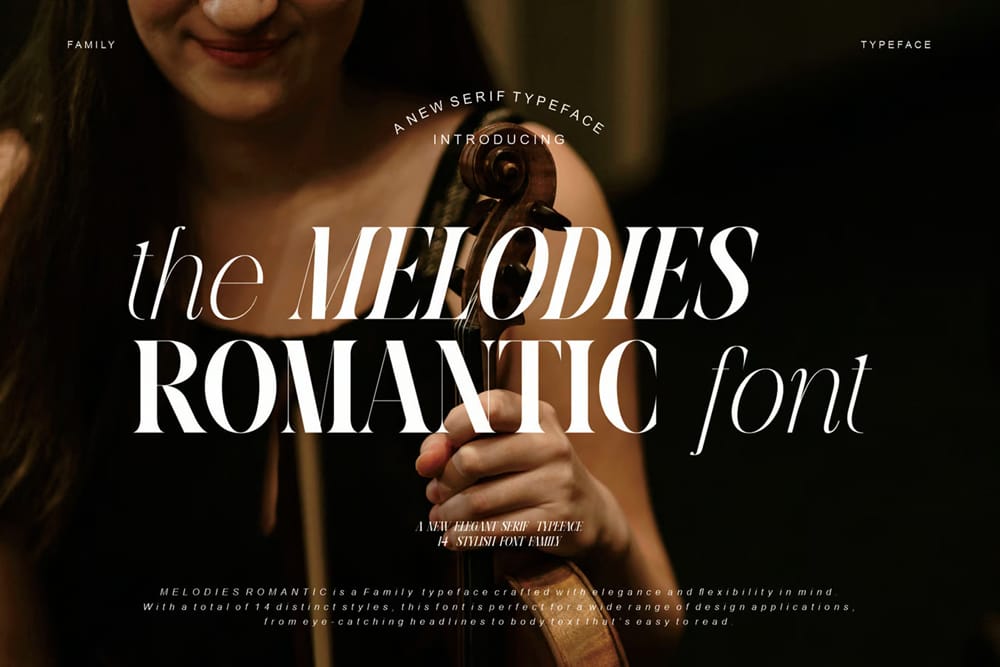
Daizen Script
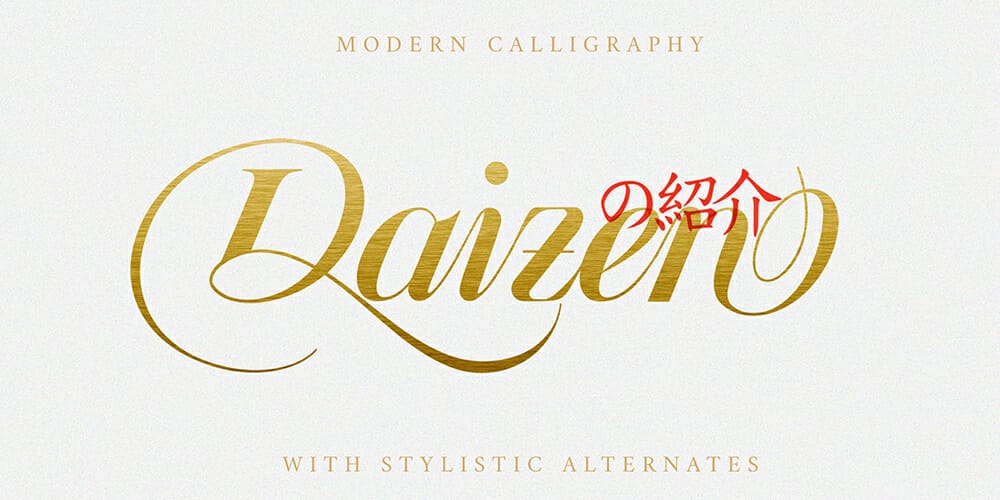
is a Japanese-inspired script font that is perfect for wedding invitations. It comes with alternate numbers, along with additional symbols and punctuation. This font would look great with a black kaiten-maru background paper.
Exmouth
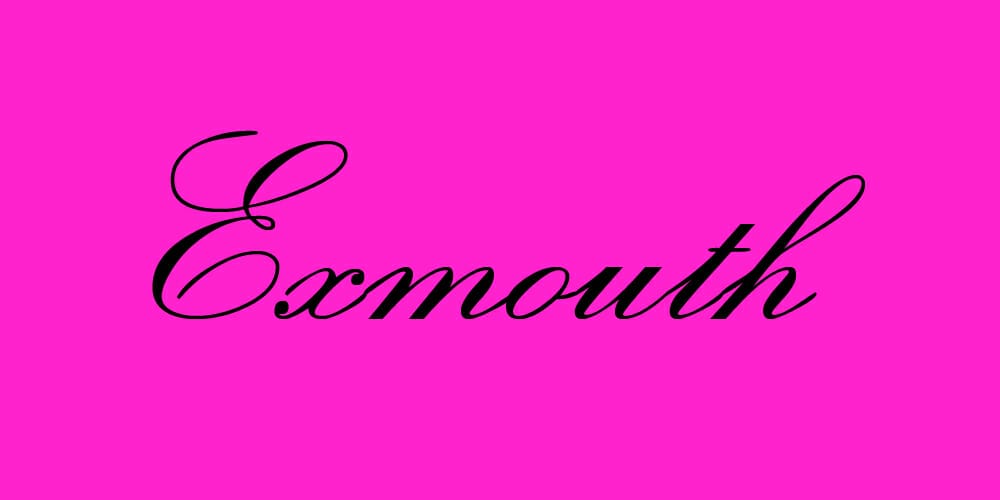
is a modern font that comes in regular and italic styles. The font includes accented letters, so it would be great for any international wedding.
Winlove Wedding Font
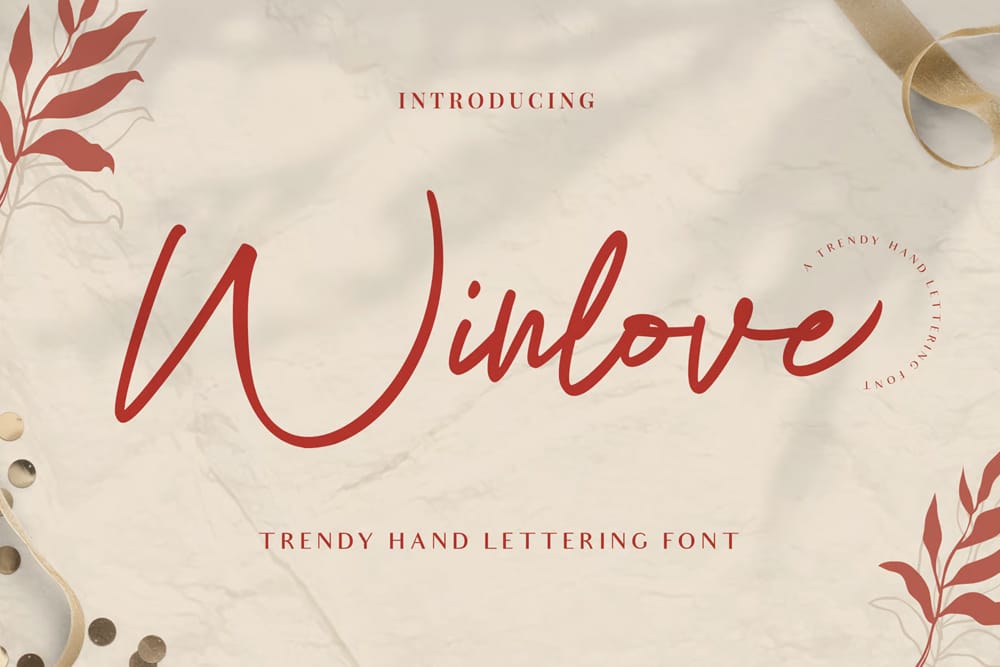
Precious Font
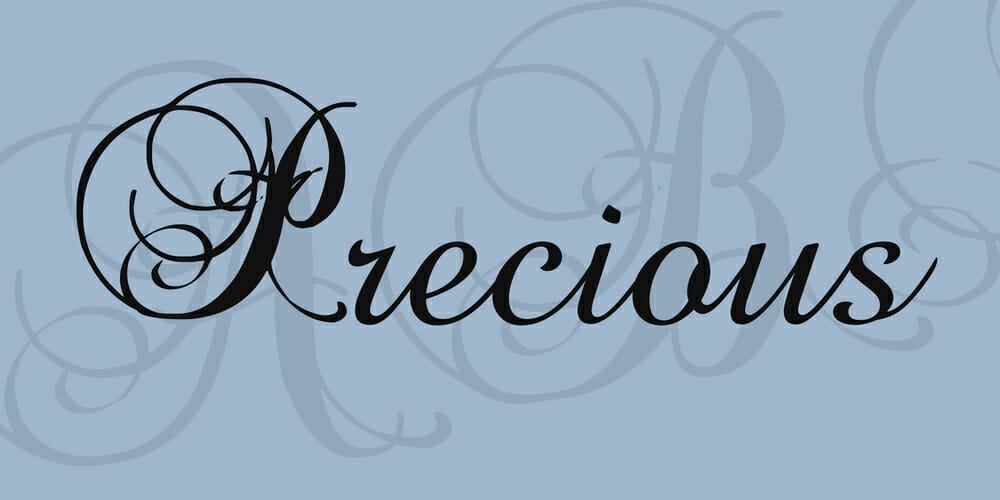
is a vintage-style wedding font. It includes a number of alternates, letters and symbols, so it would be great for creating table numbers or place cards
Alex Brush
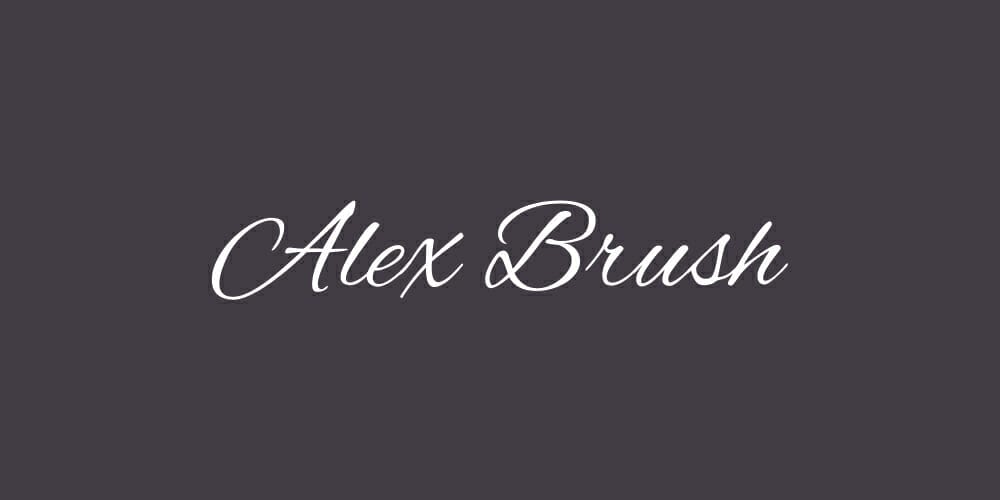
Alex Brush is a beautiful brush script font that comes with a number of alternates, making it perfect for elegant wedding invitations and other stationery. The font includes both upper and lowercase letters, as well as numbers and punctuation marks.
Love and Joy – A Wedding Font
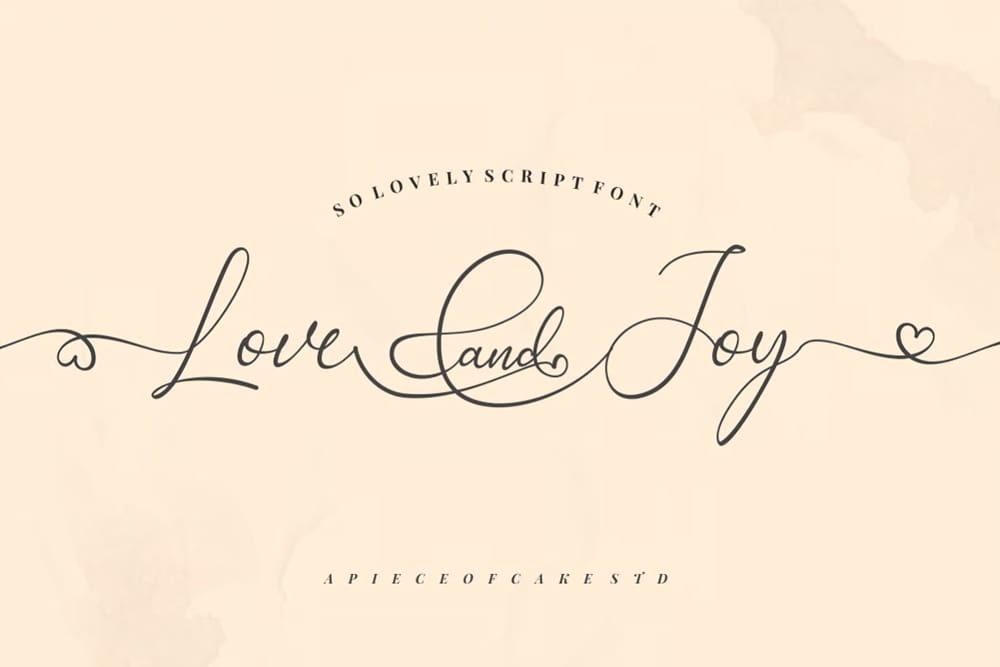
Evelyne Script
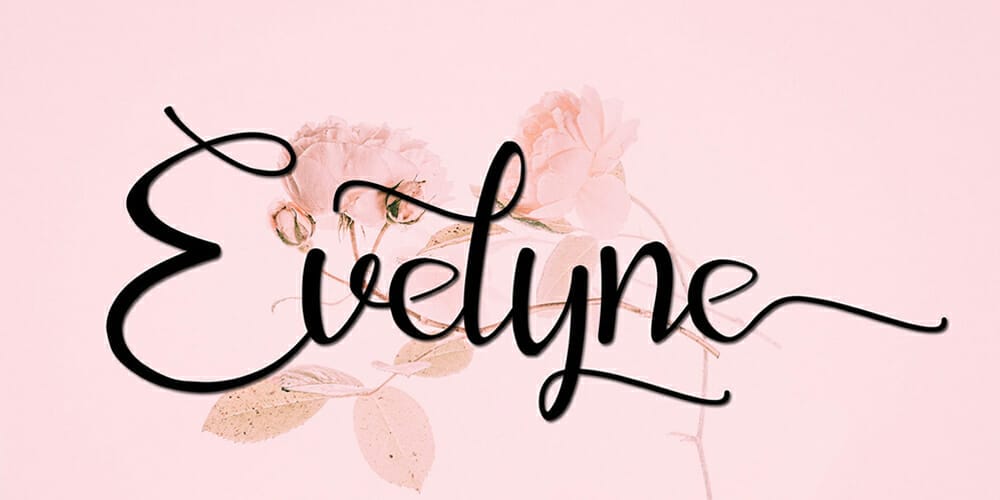
is a gorgeous wedding font with swashes that give it a beautiful and elegant touch. The font comes in a regular and bold style, and includes alternate numbers as well as punctuation marks.
Great Vibes Font
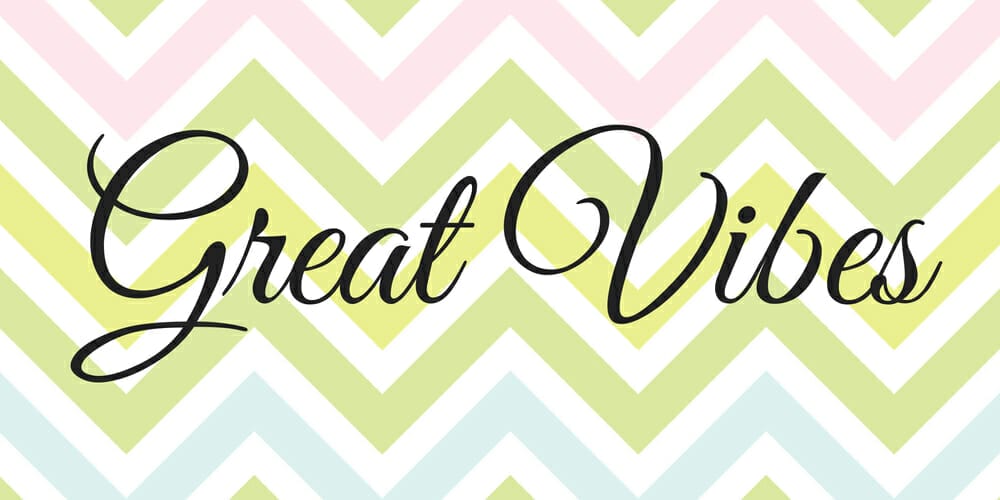
This fun and playful font is great for wedding invitation envelopes. With its hand drawn style and bright colors, it will definitely bring some joy to your big day. Great Vibes comes in a regular and bold style, with alternate numbers as well as punctuation marks.
If you’re planning a more international wedding, this font is a great choice because it includes Latin accents.
Fantastic Font
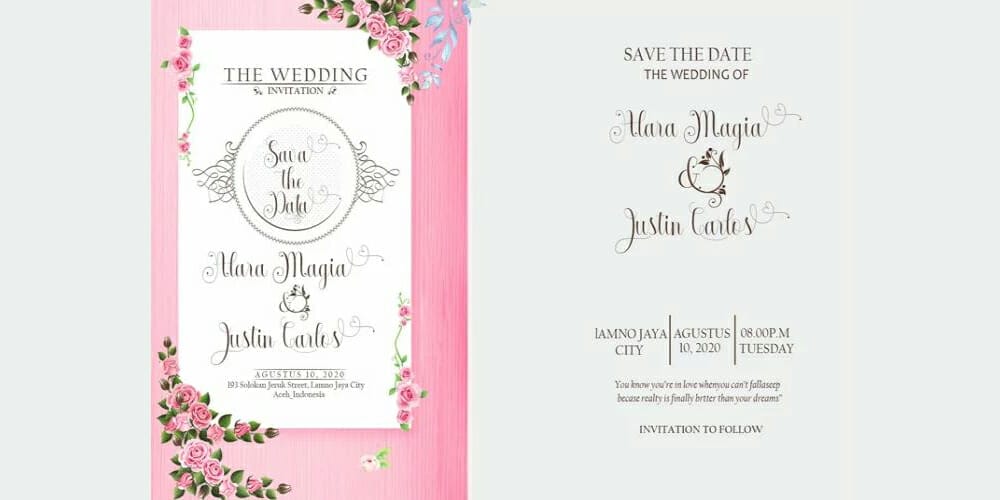
This fun and playful font is perfect for wedding invitations. With its hand drawn style and bright colors, it will definitely bring some joy to your big day. Fantastic Font comes in a regular and bold style, with alternate numbers as well as punctuation marks.
Lukara Script
Need to add some personality to your written communications? Lukara Script Font is the perfect solution! This free font gives you a handwritten-type lettering feeling that will really make your text stand out. With its nice flow, Lukara Script Font is ideal for large texts. So go ahead and give your written communications that personal touch today!
Esteh Script
This beautiful script font will make your text stand out! Esteh Script comes with a set of alternates, ligatures, and additional characters, which makes it perfect for branding, logos, posters, and more!
Signatura Monoline Script
Signatura Monoline scored an explosion of popularity in the title and branding industry for its modern calligraphy script typeface. Ideal for signatures, monograms, and headlines, this typeface is perfect for any project that requires an elegant touch.
Shathika Script
Add some personality to your written projects with Shathika Script, a modern script font with a stylish, handmade look. This professional-quality font is perfect for creating stylish letters and documents, and adds a touch of personality to any writing project.
Michelle
Writing texts can be quite boring, especially when using the same fonts over and over. That’s why we have scripts like Michelle which will give a different touch to your writing. This beautiful script font will make your texts look elegant and classy.
Gitoh
Gitoh is a modern, handwritten font. It is perfect for creating elegant logos, titles, posters and other graphic materials. This typeface includes lowercase and uppercase letters along with numerals and common symbols.